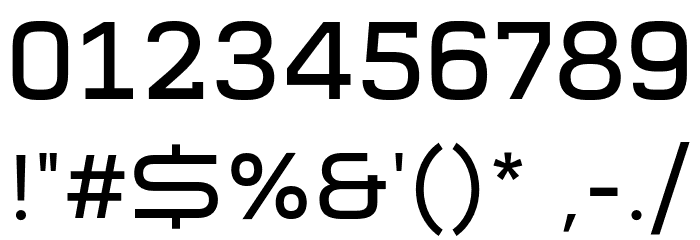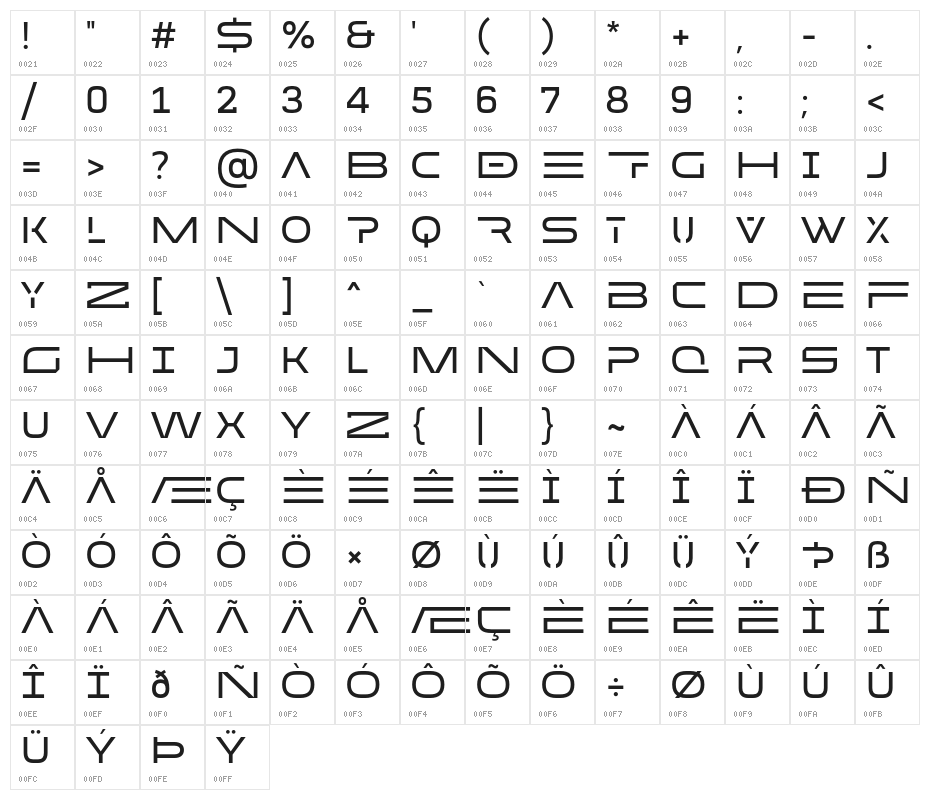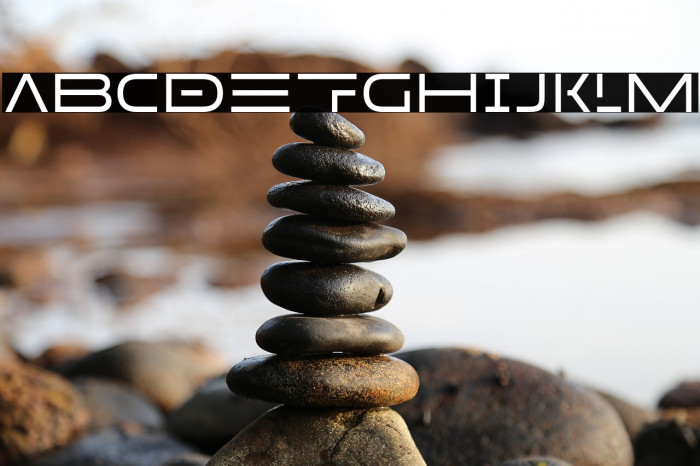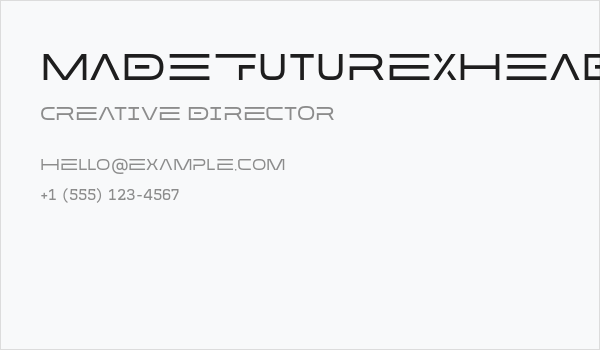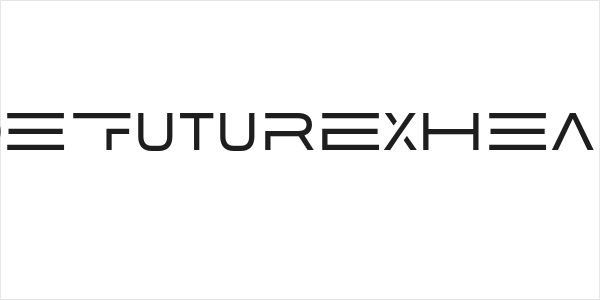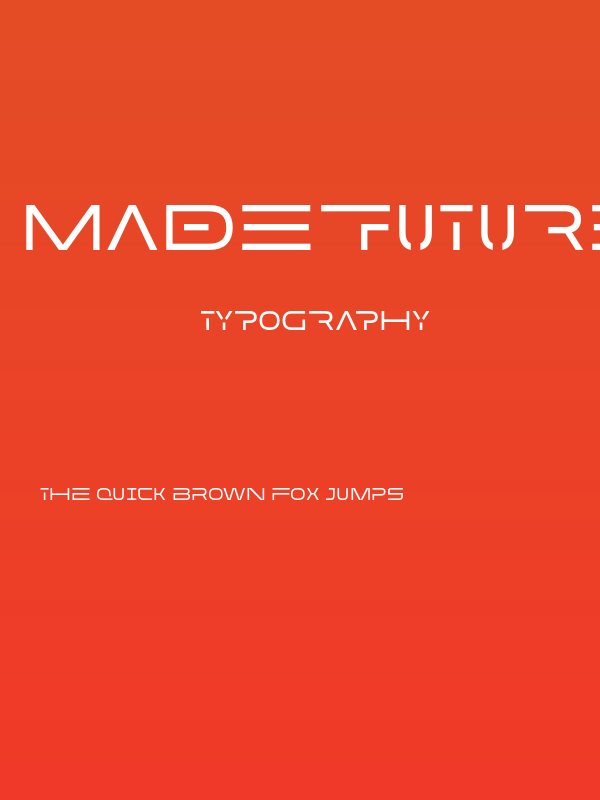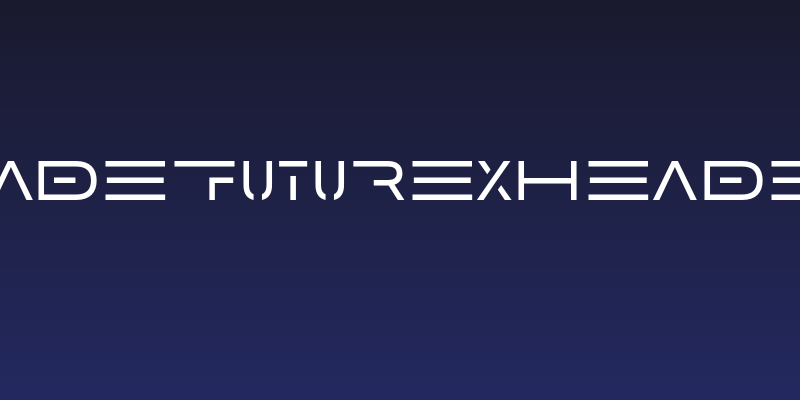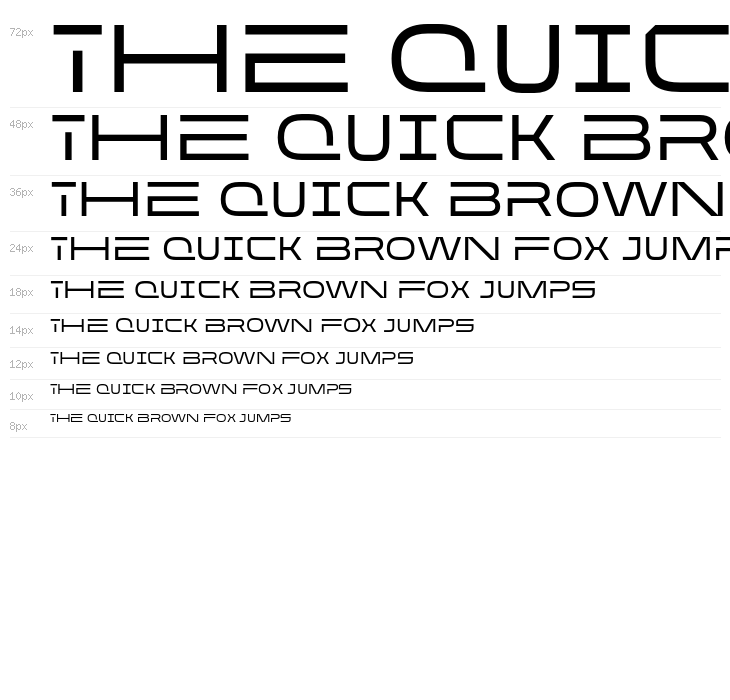
MADEFutureXHEADER Font
MADEFutureXHEADER Description
This font features a futuristic and geometric design with clean, sharp lines and a modern aesthetic. The uppercase letters are distinct with a unique blend of straight edges and subtle curves, giving it a sleek and sophisticated look. The lowercase letters maintain the geometric theme, offering a cohesive appearance across all characters. Numbers are bold and clear, ensuring readability while maintaining the overall style. Special characters are designed to complement the font's modern and futuristic feel, making it suitable for a variety of applications.
| Overall Style | Futuristic, Geometric |
| Use Case | Headlines, Logos, Digital Interfaces |
| Proposed Projects | Ideal for technology branding, sci-fi themed designs, modern logos, and digital interfaces. |